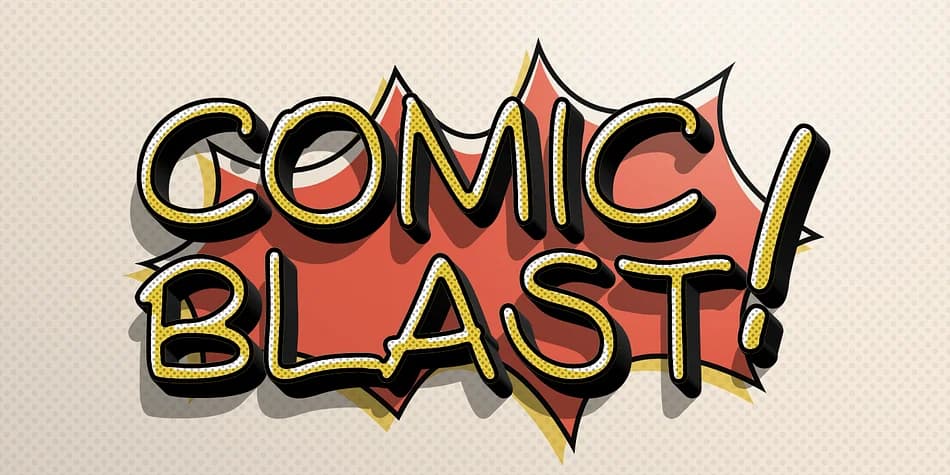
Comicblast by Kustomtype is a hand-drawn decorative typeface that captures the warmth and energy of classic European comic art. The Belgian-inspired letterforms carry that deliberate casualness you get from real pen work: loose but intentional, energetic but controlled. With six complete weights at your disposal (regular, medium, and bold, each with matching italics), you have enough variation to build readable hierarchies and visual emphasis across projects without hunting for alternate typefaces.
The round, open letter shapes stay legible even when small, while the handmade quality infuses any application with genuine character and personality. Comic book panels and speech bubbles are the natural home, but Comicblast earns its place in indie game interfaces, illustrated children's book covers, humorous greeting card suites, and retro product packaging where you need warmth without sacrificing readability or professionalism. The typeface carries real weight despite its casual stance; it feels drawn by someone who understands letterforms and spacing, not algorithmically fitted to a grid.
Comicblast Font is a decorative font that shines as a display or heading face. Pair it with a clean sans-serif or serif font for body text β the contrast creates a clear hierarchy while the two styles stay balanced and easy to read.